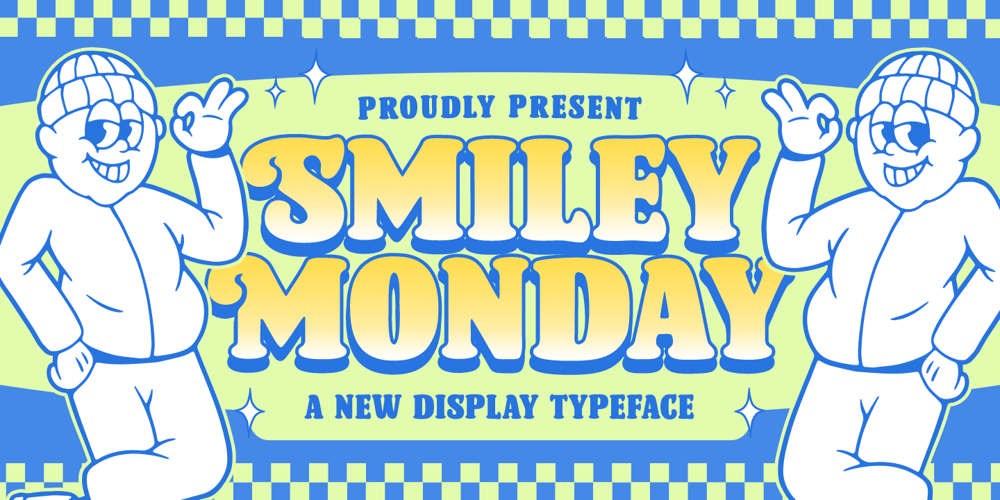
Smiley Monday Font Family was designed by Hendry Juanda and published by Letterhend. Smiley Monday contains 1 styles and family package options. Smiley Monday is a brand new display font. You can play around with alternates character. This font perfectly made to be applied especially in logo, and the other various formal forms such as invitations, labels, logos, magazines, books, greeting / wedding cards, packaging, fashion, make up, stationery, novels, labels or any type of advertising purpose.Features : Uppercase & lowercase Numbers and punctuation Alternates & Ligatures Multilingual Support PUA encoded